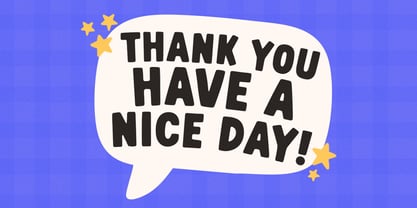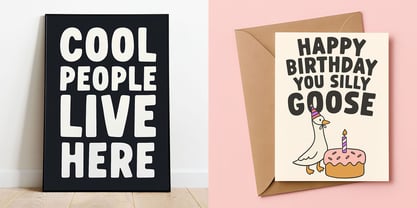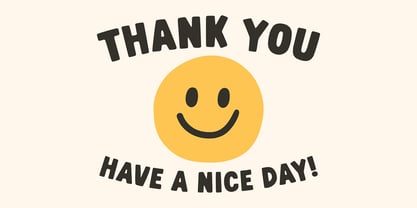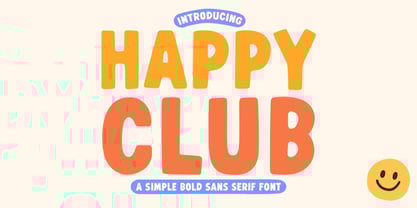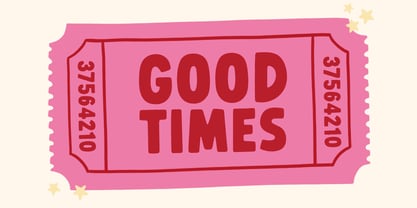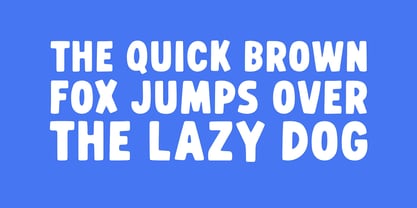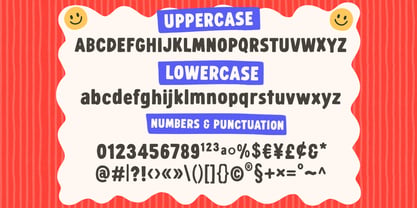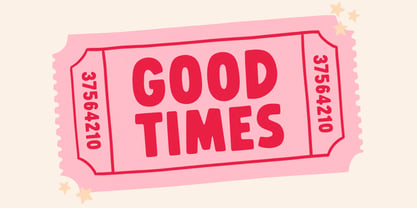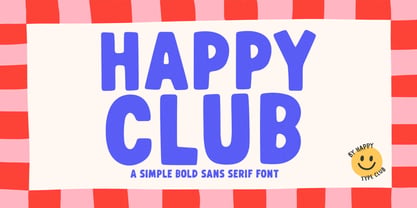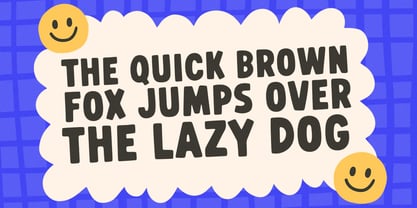
Happy Club
by Happy Type Club
The Happy Club Font Family was designed by Isabel Clarke and published by Happy Type Club. Happy Club contains 1 styles. More about this family
Happy Club is a simple bold typeface perfect for any fun quirky design work! This font can be used for anything such as t-shirt designs, phone cases, greeting cards, invitations, mugs and so much more! Get creative!
Designers: Isabel Clarke
Foundry: Happy Type Club